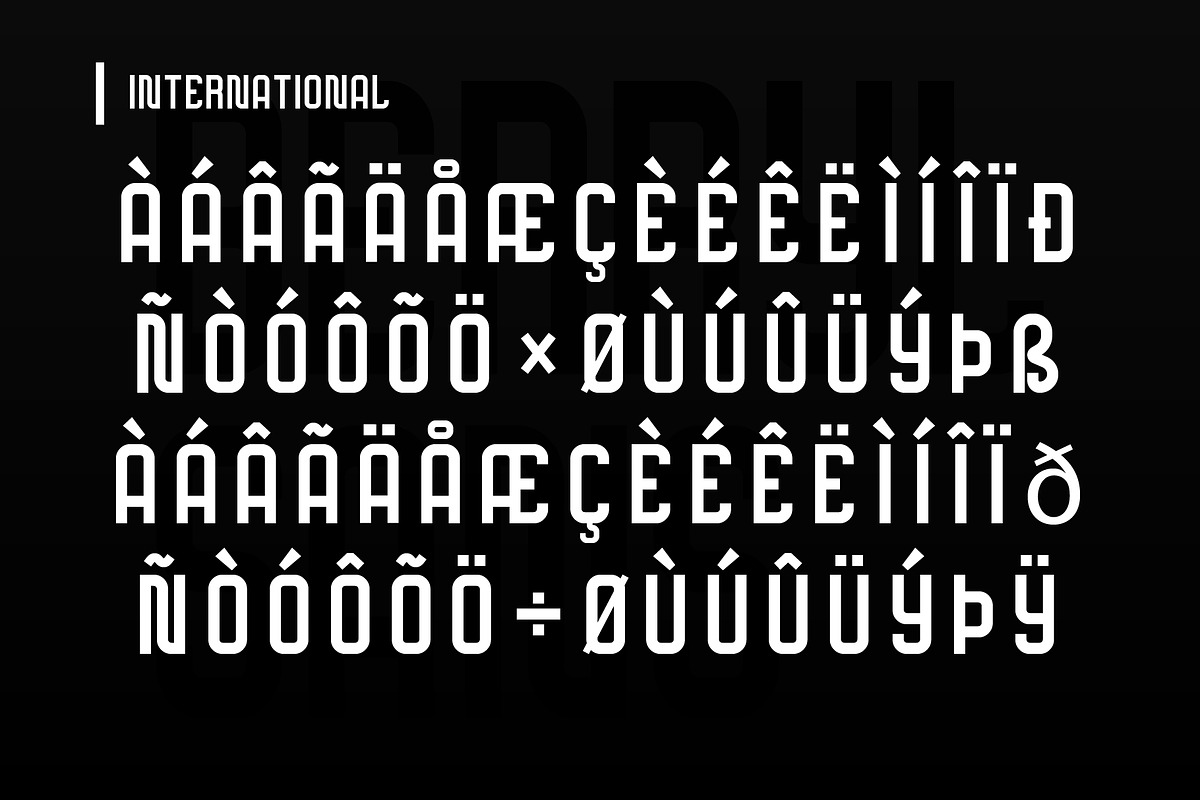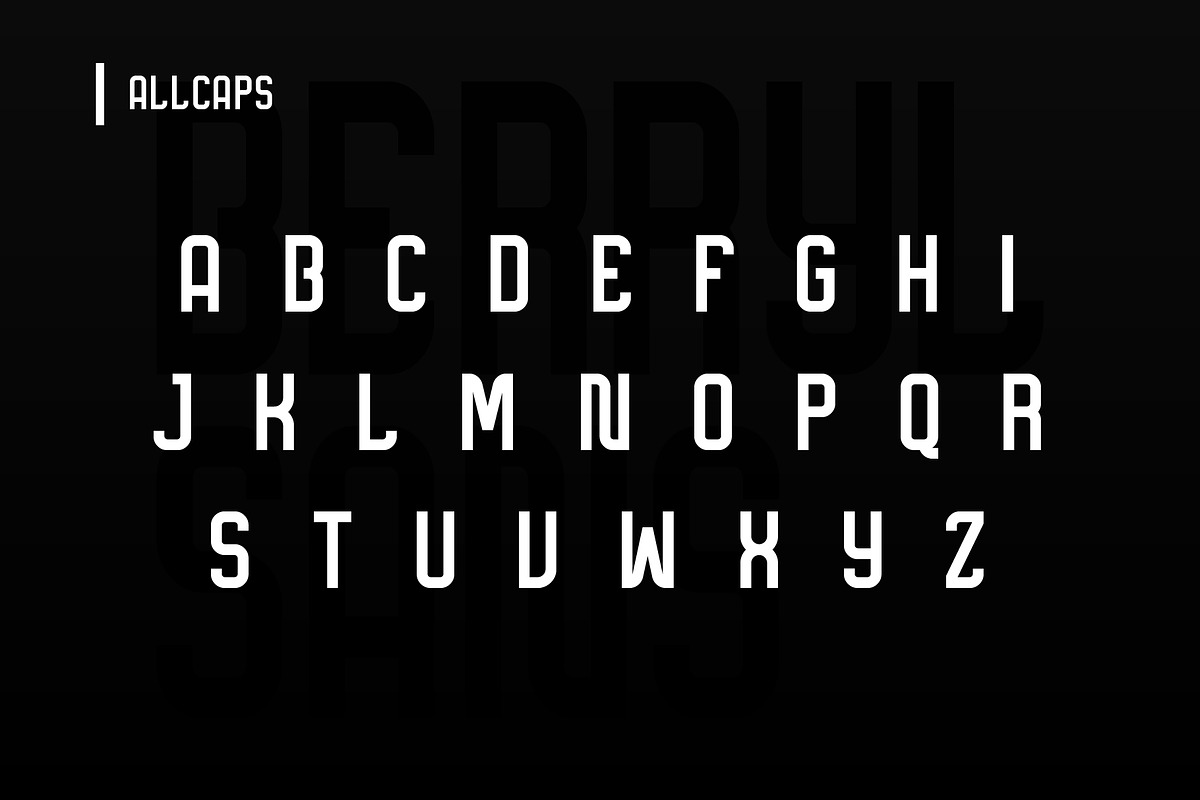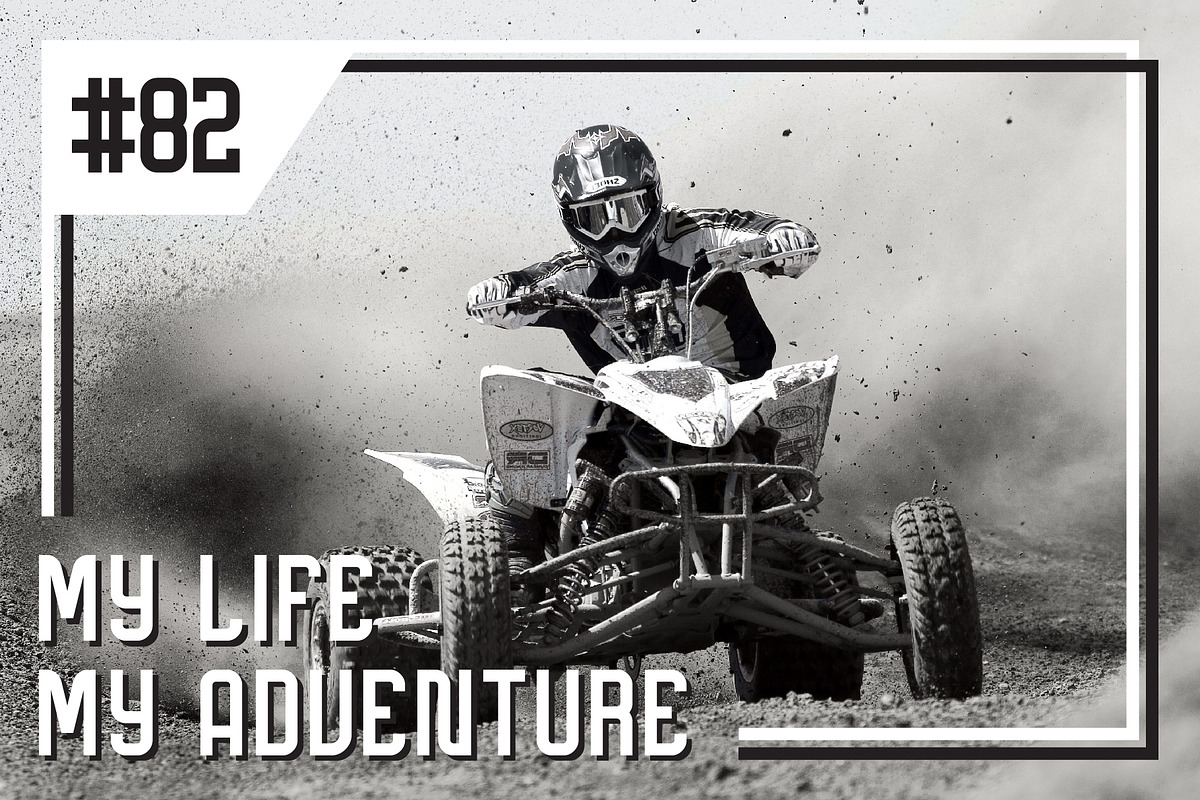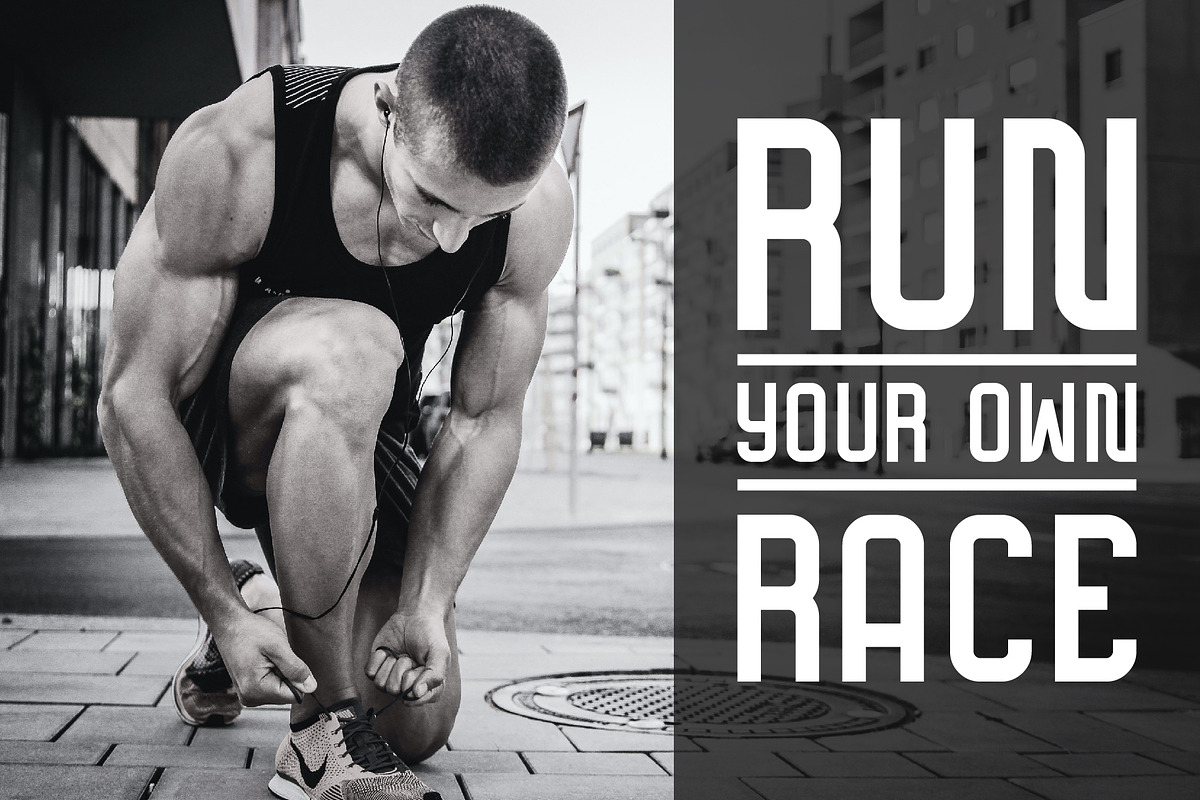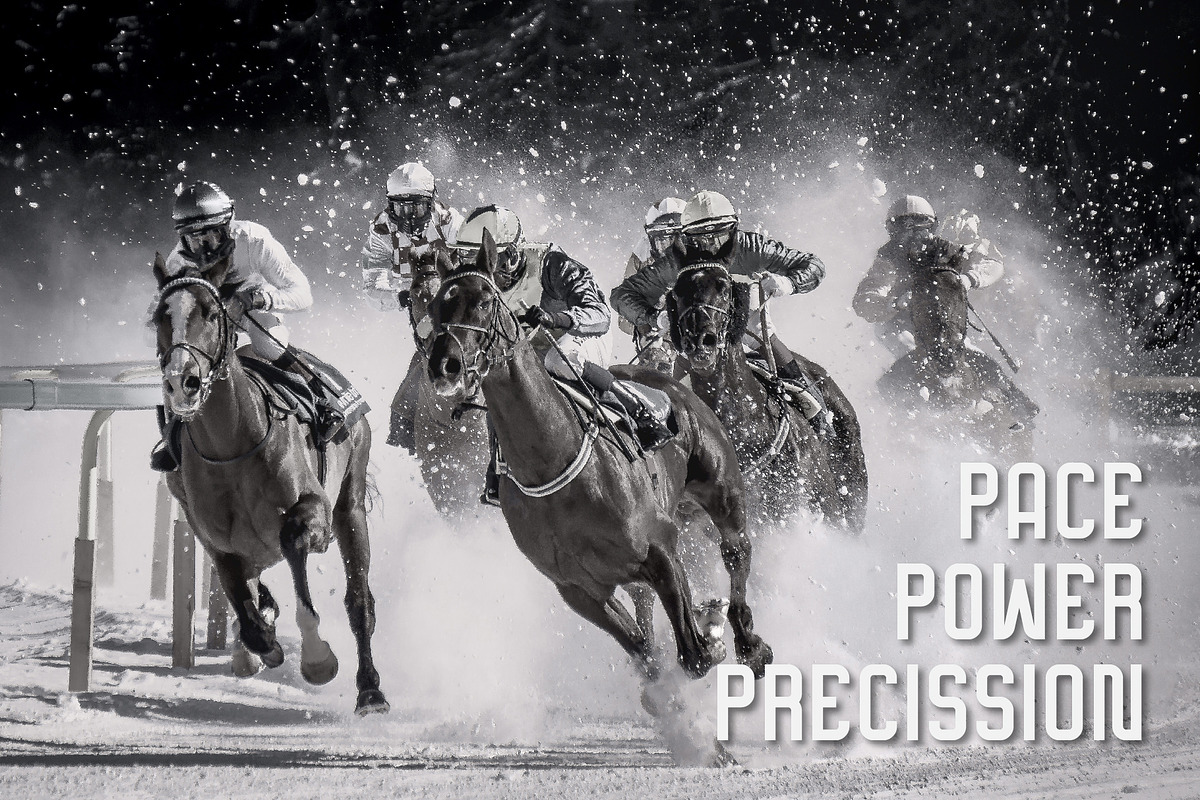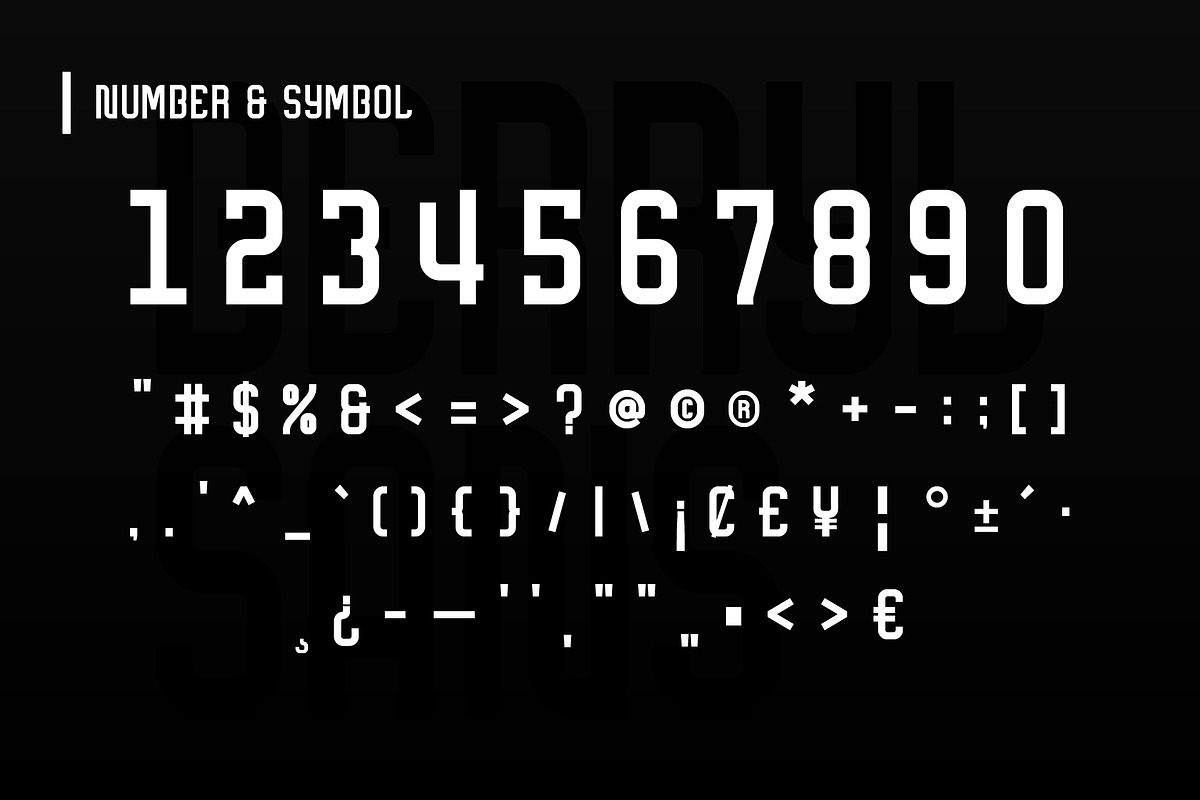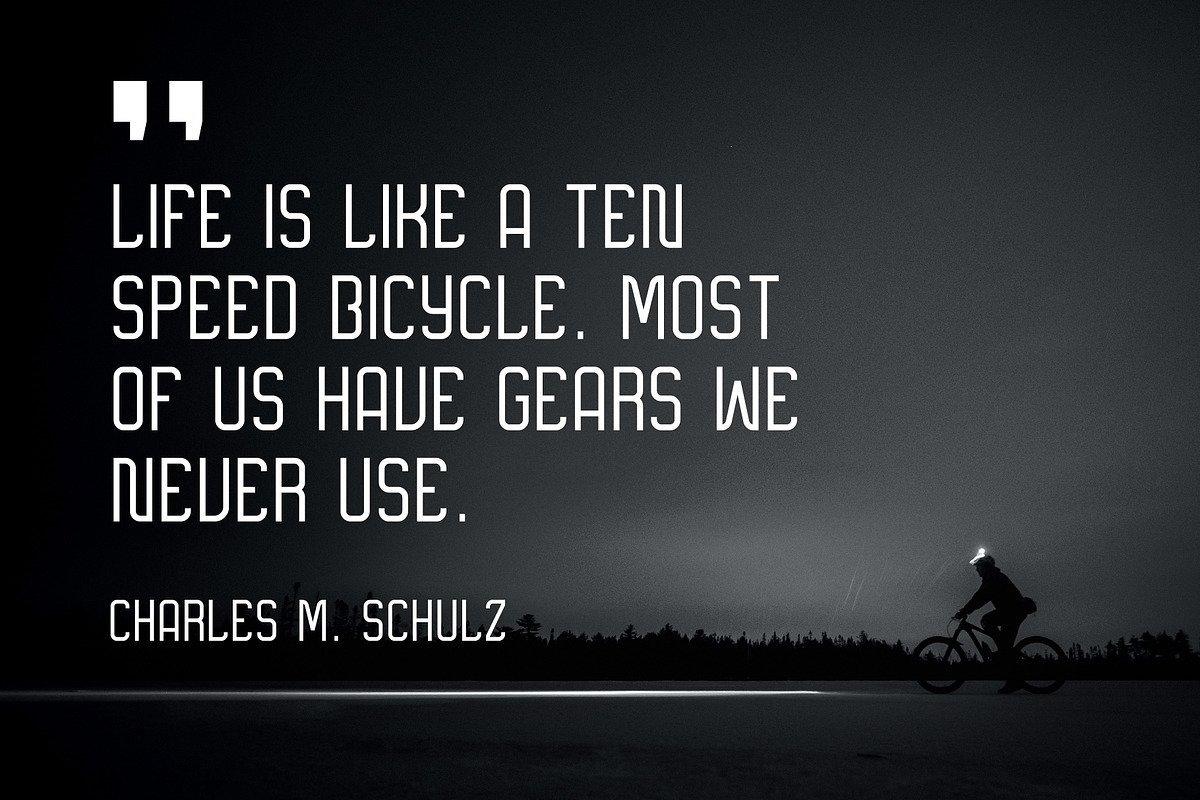
Sans Serif Font - BERRYL SANS
INTRODUCING , BERRYL SANS SERIF FONT FAMILY
Berryl sans is a strong font family and sophisticated sans serif. Inspired by the diamond, it’s sturdy uncompromising style is felt through the controlled letter forms and modern touches. A balance of hard lines and smooth curves. Each font in the family can stand on its own, dynamic and authoritative in their own right
Extensive Language Support
Berryl Sans font works great in any branding, logos, sports, magazines, films. The different weights give you full range to explore a whole host of applications, while the Berryl fonts give a real modern feel to any project.
- Berryl Sans Regular
- Berryl Sans Bold